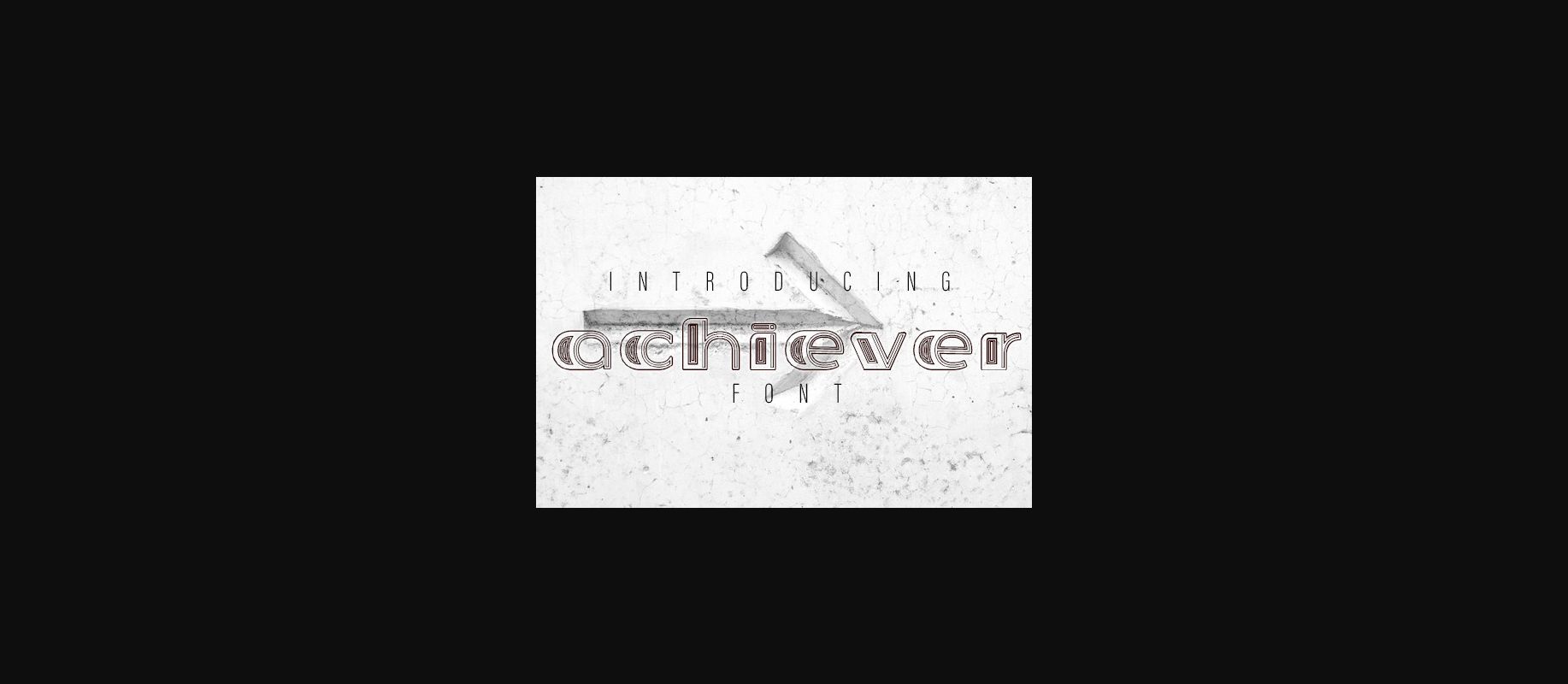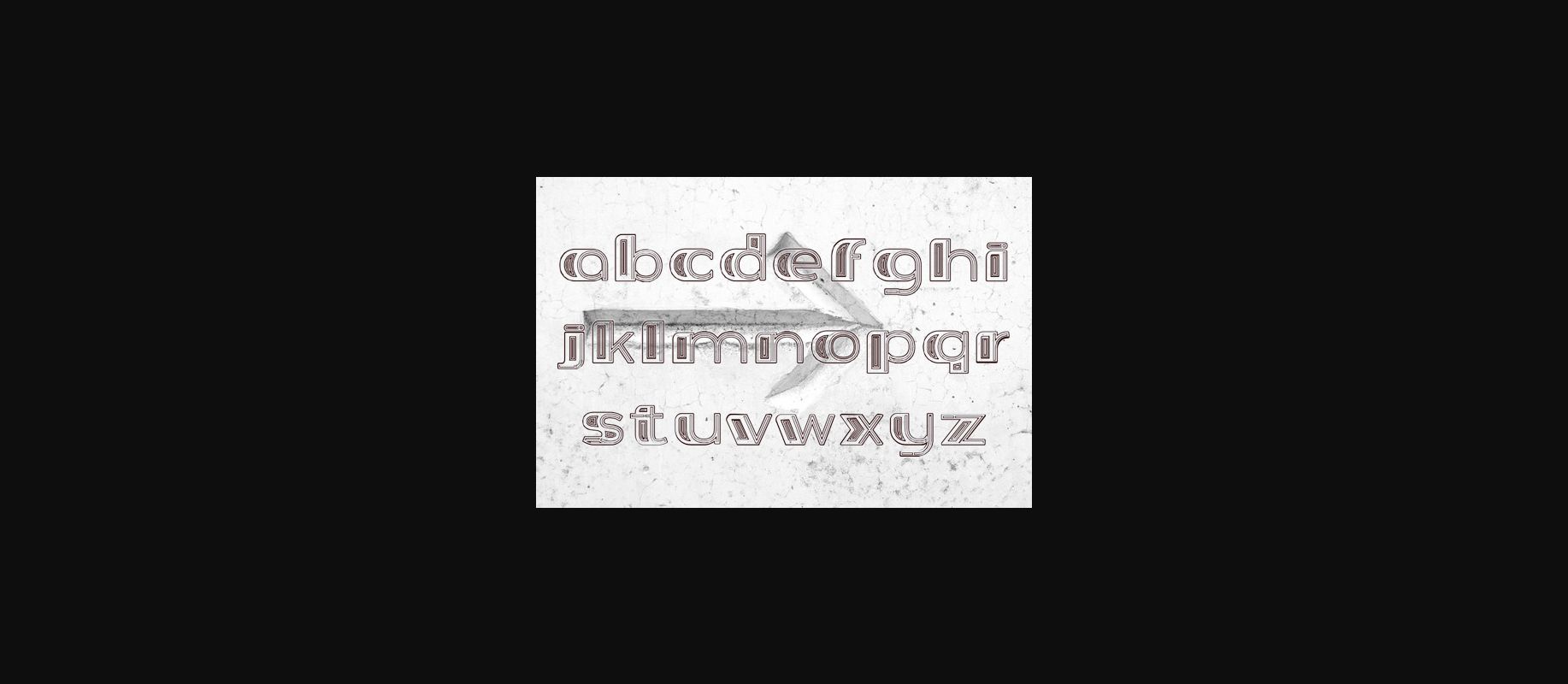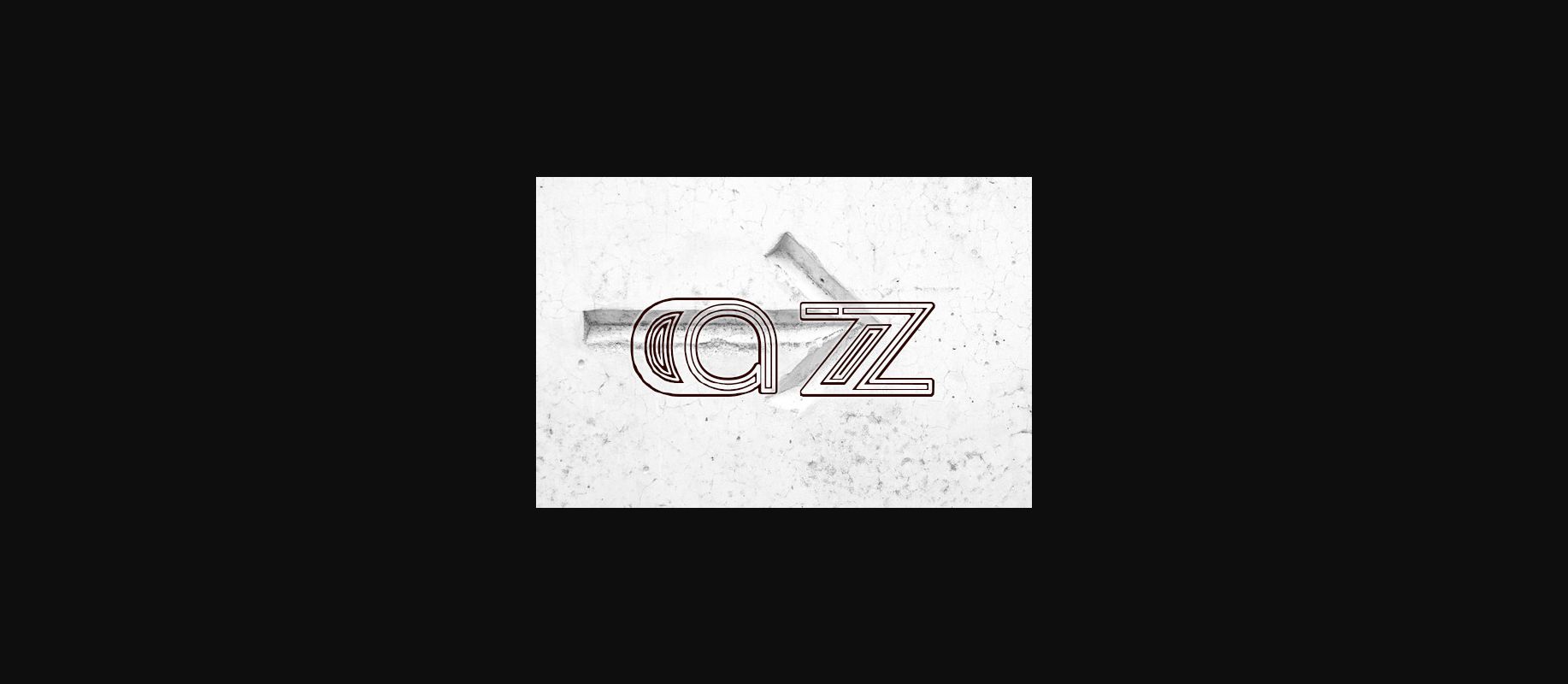
Achiever Font
About Achiever Font
Achiever is a beautiful decorative font that will take your designs to the next level. Use this font on posters, flyers, and wedding brochures.